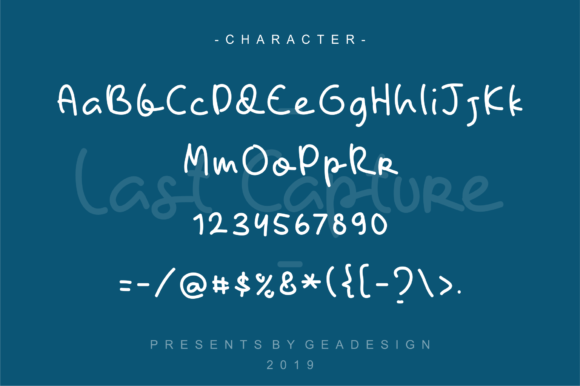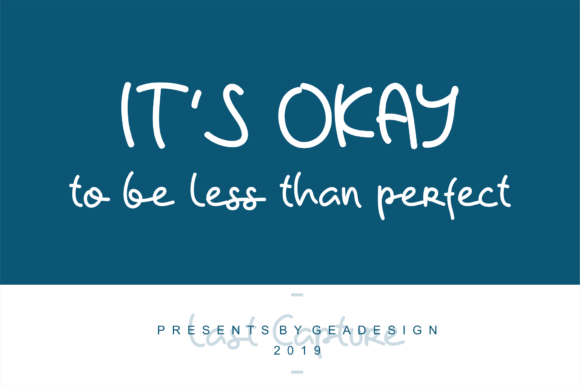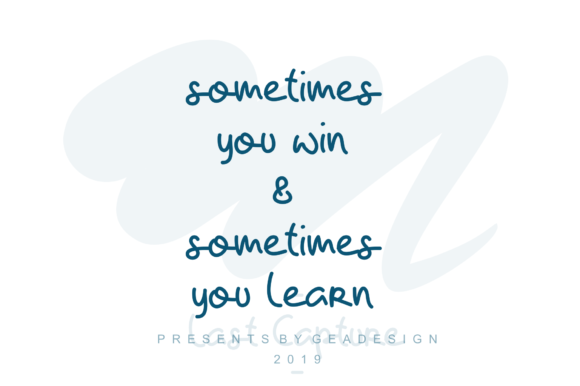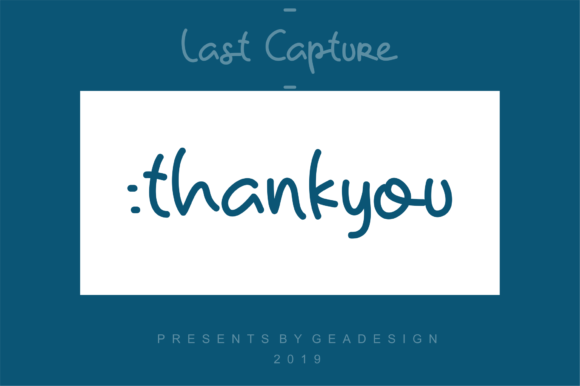
Introduction to Last Capture Font
Last Capture is unique typeface with a natural and organic feel.
It will turn any design project into a stand out .
Key Features of Last Capture Font
Why Choose Last Capture Font?
Last Capture Font offers exceptional quality and versatility, making it a valuable addition to your design toolkit. Whether you’re creating for personal projects or commercial use, Last Capture Font delivers professional results.